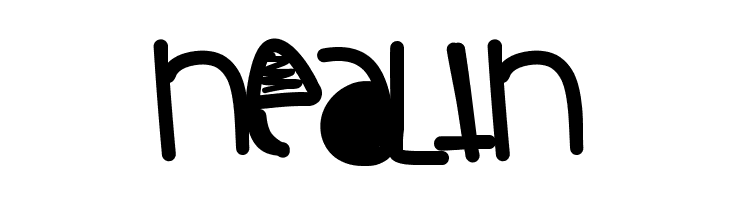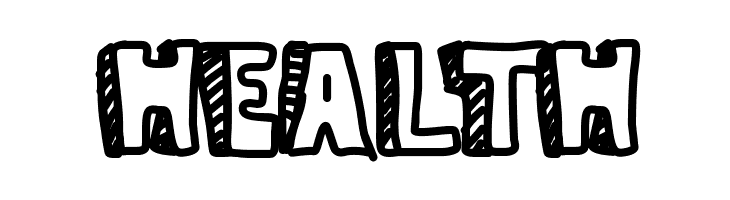
An ornate, calligraphy-inspired font with elaborate flourishes and dramatic strokes.
A lively, handwritten font with fluid strokes and a casual elegance.
A graceful script font with flowing, interconnected letters and dynamic contrast.
A playful, dripping paint-style font with irregular, artistic shapes.
A playful, handwritten font with a casual and friendly vibe.
A playful, chalkboard-style font with a casual and friendly vibe.
A modern, dotted font resembling digital displays.
A playful, hand-drawn font with bold strokes and a whimsical style.
A bold, geometric font with angular cuts and a modern industrial feel.
A lively, cursive handwritten font with fluid strokes.
A playful, casual handwritten font with dynamic, flowing strokes.
A bold, angular font with a geometric, modern design.
A bold, hand-drawn font with a playful and artistic style.
A whimsical, heart-encased decorative font with a hand-drawn style.
A dynamic font with overlapping lines creating a fluid and artistic appearance.
A playful, casual handwritten font with a friendly vibe.
An artistic, hand-drawn font with a whimsical and expressive style.
A playful, bold outline font with rounded edges and a whimsical style.
A playful, hand-drawn font with quirky, irregular shapes and a casual style.
A playful, handwritten font with a whimsical and casual style.
A bold, playful font with a bubbly, cartoonish style and high contrast strokes.
A playful, hand-drawn font with a whimsical and friendly style.
A playful, hand-drawn font with tall, narrow letters and decorative elements.
A playful, hand-drawn font with tall, narrow letters and a whimsical style.
A playful, hand-drawn font with tall, narrow characters and a whimsical style.
A playful handwritten font with whimsical, rounded strokes and decorative elements.
A playful, rounded font with a friendly and whimsical style.
A playful, handwritten-style font with tall, narrow characters and a whimsical appearance.
A playful, casual handwritten font with fluid, dynamic strokes.